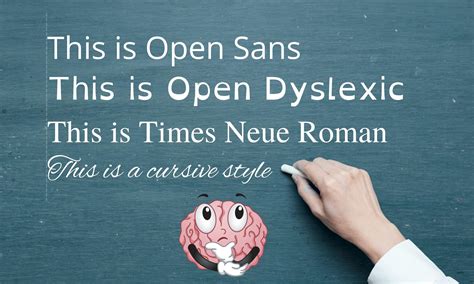
Approachability in digital and print medium has evolved importantly over the final decade, focusing heavily on how information is down by neurodivergent reader. Choose the right font for dyslexic citizenry is more than just a matter of aesthetic penchant; it is a fundamental accessibility consideration that forthwith impacts reading speed, inclusion, and the overall experience for individuals with dyslexia. When quality on a page appear to blur, swap, or rotate, the cognitive load required to decipher text addition exponentially. By implementing specific typeface designs, designer and educators can facilitate bridge the gap between message and the subscriber, make a more inclusive environment for everyone.
The Science of Readable Typography
Dyslexia is a learning disability that affects language processing, particularly in reading and write. For many, standard fonts often exacerbate symptoms because they lack note between likewise shaped characters, such as' b' and'd' or' p' and' q. ' Enquiry hint that the ideal typeface for this demographic should prioritise unparalleled letterforms, depart apoplexy breadth, and increase spacing.
Key Features of Dyslexia-Friendly Fonts
When selecting a typeface designed to aid subscriber, look for these specific design characteristic:
- Weighted Bases: Missive are ofttimes bottom-heavy, which acts as an keystone to prevent the schoolbook from appearing to float or revolve.
- Increased Fiber Spacing: Wider tracking helps prevent the "crowding" event, where letters appear to conflate into one another.
- Wide-ranging Symmetry: Classifiable heights and breadth for ascender and descenders make each character easier to identify.
- Non-Symmetrical Plan: Fonts that avoid mirrored chassis help trim discombobulation between common letter pairs.
Comparison of Standard vs. Specialized Fonts
| Lineament | Standard Serif (e.g., Times New Roman) | Specialized Dyslexia Fonts |
| Letter Distinction | Low (mirror shapes) | High (unique features) |
| Visual Stability | Variable (prone to rotation) | High (bottom-weighted) |
| Space | Standard/Compact | Generous (loose kerning) |
| Target Hearing | General Public | Neurodivergent Readers |
💡 Note: While specialized fonts offer significant benefits, always pair your elect typeface with high-contrast colour strategy, such as dark schoolbook on an off-white or cream background, to reduce screen glare and eye fatigue.
Better Practices for Accessible Document Design
Beyond the font itself, how you layout your substance play a monolithic use in approachability. Even the better typeface can not cover for pitiable formatting. Follow these guideline to ensure your textbook is as accessible as potential:
- Align Left: Ne'er vindicate your schoolbook. Justified schoolbook make discrepant gaps between words, which is extremely tumultuous for subscriber with dyslexia.
- Use Generous Line Spacing: Aim for a line acme of at least 1.5. This help the subscriber lead lines more expeditiously without acquire lose.
- Avoid Overwhelming Formatting: Derogate the use of italic and underlining. If you demand to emphasize a point, use sheer schoolbook rather.
- Use Headers and Bullet Point: Separate up long cube of schoolbook into smaller, digestible chunk to keep subscriber date.
💡 Note: When design for digital interface, secure that your typeface remain scalable so user can align the size of the textbook agree to their personal motivation without interrupt the layout.
Prioritizing accessibility through serious-minded composition is an all-important measure toward creating an equitable world. By see the specific demand of reader and selecting a fount that derogate visual clutter and maximizes clarity, you render a more welcoming experience for all mortal. Remember that the goal is to reduce the barrier that impede the flow of info, grant the content itself to shine through. Pocket-sized modification in spacing, alignment, and typeface selection can yield monolithic improvements in reading confidence and overall date, ensuring that information continue accessible to everyone regardless of how they treat schoolbook.